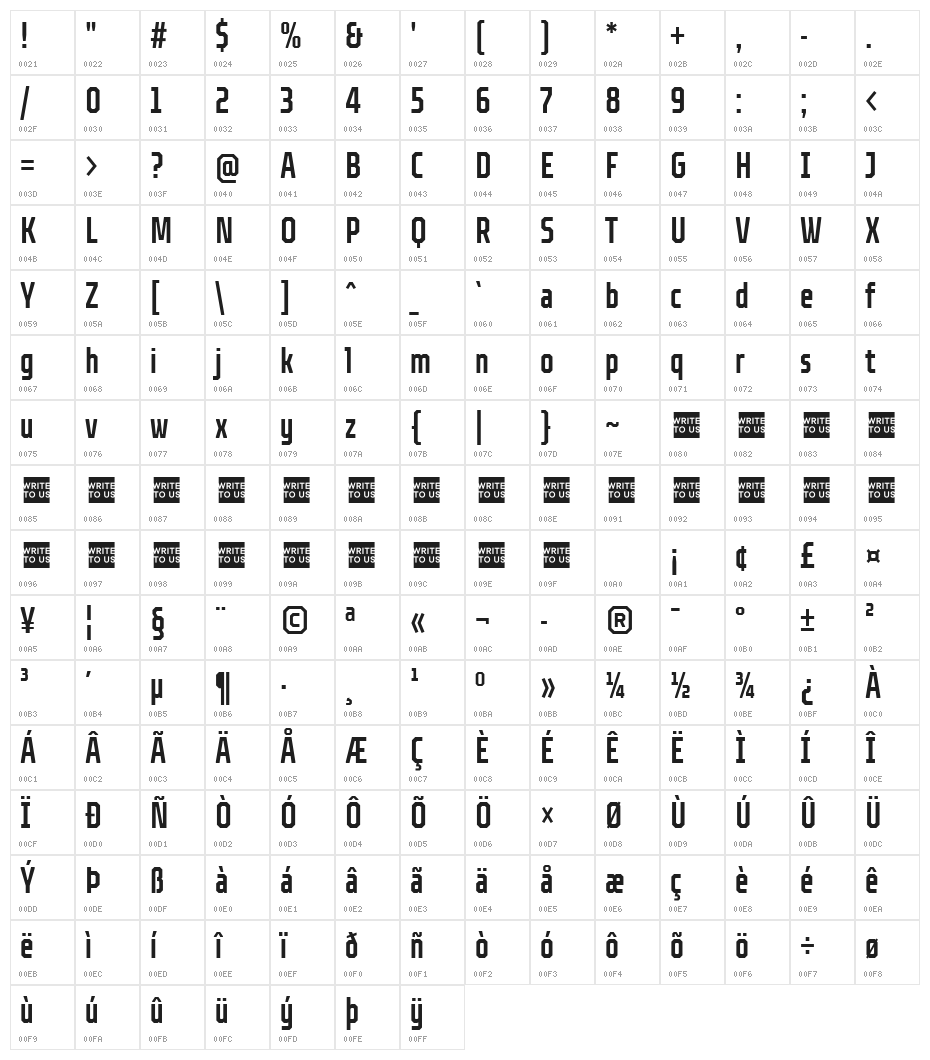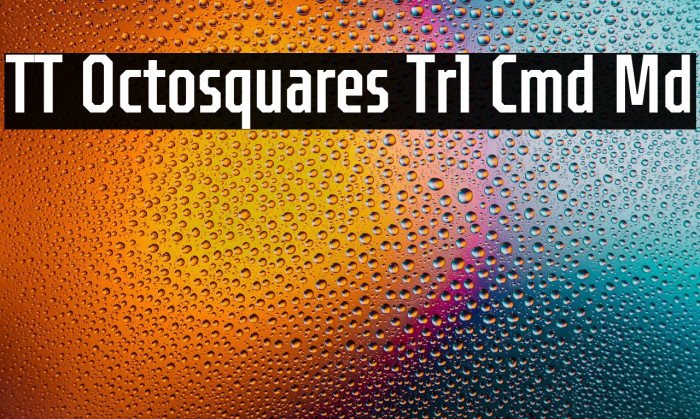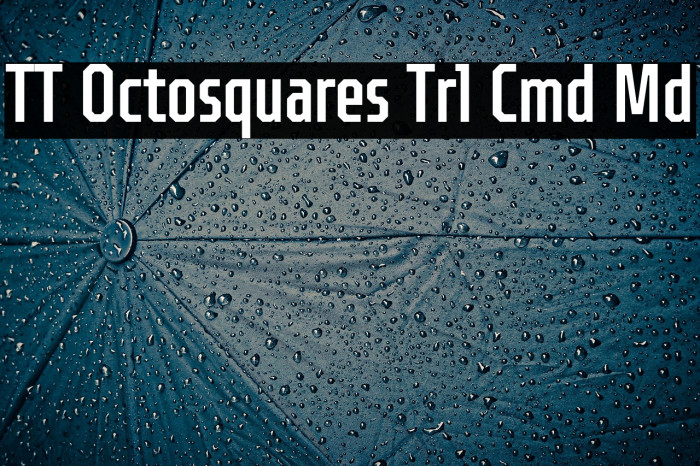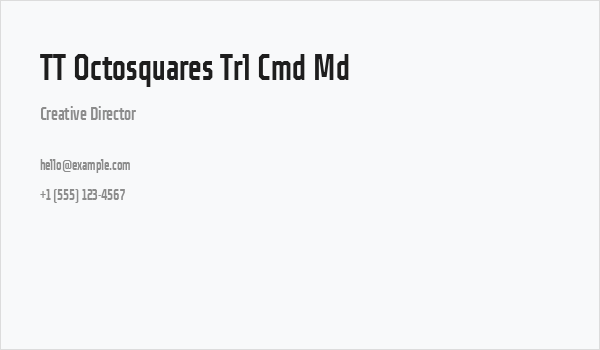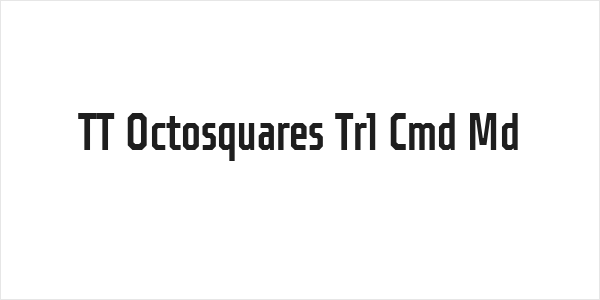
TT Octosquares Trl Cmd Md Font
TT Octosquares Trl Cmd Md Description
This font features a bold and geometric design with a strong presence. The characters are constructed with sharp angles and straight lines, giving it a modern and industrial feel. The uppercase and lowercase letters maintain a consistent width, creating a uniform appearance. The numerals and special characters follow the same angular style, ensuring cohesion across all glyphs. The font's structure is clean and precise, making it suitable for projects that require a contemporary and robust aesthetic.
| Proposed Projects | Ideal for branding, posters, headlines, and any design that requires a strong, modern look. |